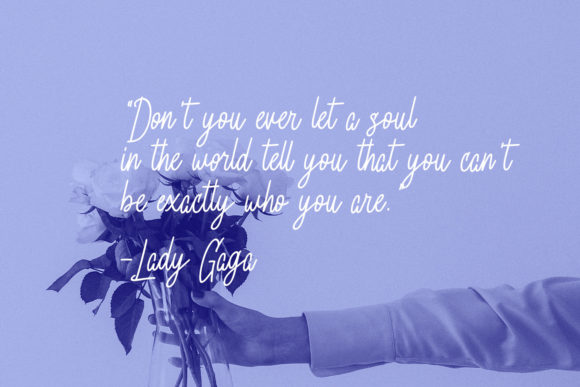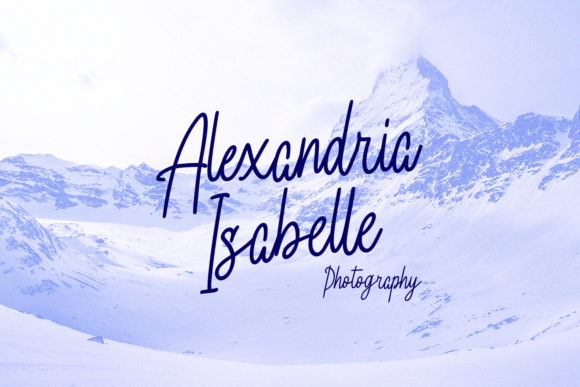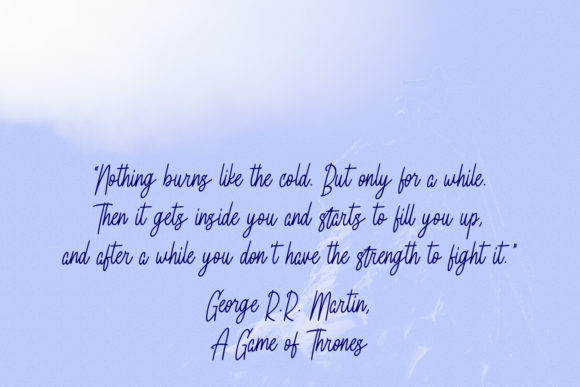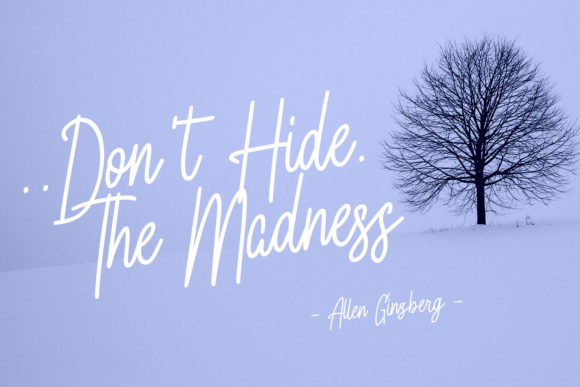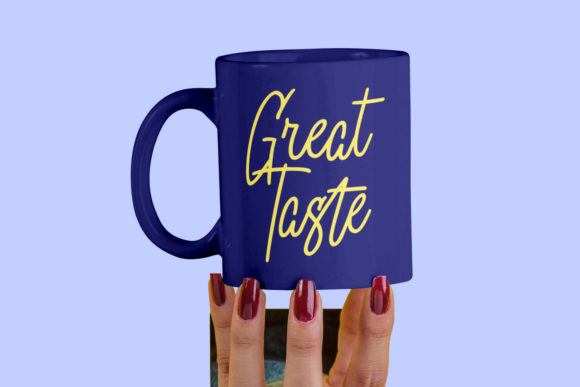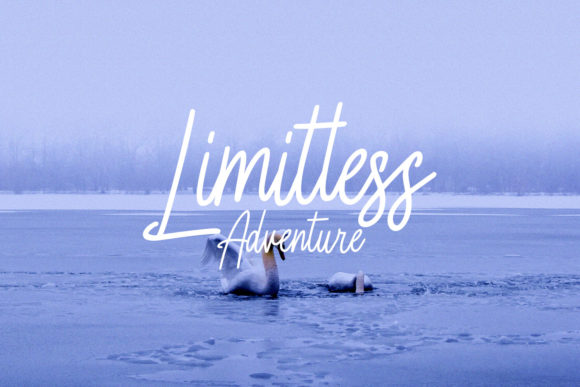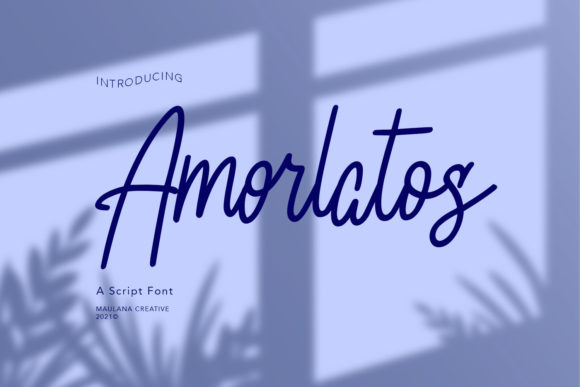
Introducing Amorlatos Font: Elevate Your Designs with a Touch of Vintage Elegance
Are you on the hunt for a font that adds a dash of sophistication and whimsy to your designs? Look no further than Amorlatos, a stunning script font that is sure to capture the hearts of designers and crafters alike. Amorlatos is a light, delicate, and thin lettered script font that boasts a unique vintage style, perfect for making your personalized creations stand out from the crowd.
What Makes Amorlatos Font So Special?
Amorlatos font is a true gem in the world of typography. Its light and delicate appearance gives it an air of elegance, making it perfect for designs that require a touch of sophistication. The thin lettering adds a level of refinement, while the script style injects a dose of personality and whimsy. Whether you’re working on a wedding invitation, a branding project, or a craft design, Amorlatos is sure to bring a level of uniqueness and charm that sets your work apart.
The Vintage Style of Amorlatos
One of the standout features of Amorlatos font is its vintage style. The font’s design is reminiscent of classic script fonts from the past, with a modern twist that makes it fresh and relevant. The vintage vibe of Amorlatos is perfect for designers and crafters who want to add a touch of nostalgia and romance to their work. Whether you’re creating a retro-inspired design or simply want to add a level of depth and history to your project, Amorlatos is an excellent choice.
Uses for Amorlatos Font
Amorlatos font is incredibly versatile, making it suitable for a wide range of design projects. Here are just a few ideas to get you started:
- Wedding Invitations: Add a touch of romance and elegance to your wedding invitations with Amorlatos font. The font’s delicate appearance and vintage style make it perfect for formal and informal wedding designs alike.
- Branding: Use Amorlatos font to create a unique and memorable brand identity. The font’s script style and vintage vibe make it perfect for businesses that want to stand out from the crowd.
- Craft Designs: Amorlatos font is a great choice for craft designs, such as papercraft, card making, and scrapbooking. The font’s delicate appearance and whimsical style make it perfect for creating beautiful and intricate designs.
- Signage: Amorlatos font is also suitable for signage projects, such as store signs, menus, and event banners. The font’s vintage style and elegant appearance make it perfect for creating eye-catching and memorable signs.
Tips for Using Amorlatos Font
To get the most out of Amorlatos font, here are a few tips to keep in mind:
- Pair with Bold Fonts: Amorlatos font pairs beautifully with bold fonts, which can help to create a striking contrast and add visual interest to your design.
- Use in Moderation: While Amorlatos font is beautiful, it can be delicate and easy to overuse. Use the font in moderation to create a balanced and harmonious design.
- Experiment with Colors: Amorlatos font looks stunning in a range of colors, from soft pastels to rich jewel tones. Experiment with different colors to find the perfect combination for your design.
Amorlatos font is a true gem in the world of typography. Its light, delicate, and thin lettered script style, combined with its vintage vibe, make it perfect for designers and crafters who want to add a touch of elegance and whimsy to their work. Whether you’re working on a wedding invitation, a branding project, or a craft design, Amorlatos is sure to bring a level of uniqueness and charm that sets your work apart. So why not give Amorlatos font a try and see the difference it can make in your designs?